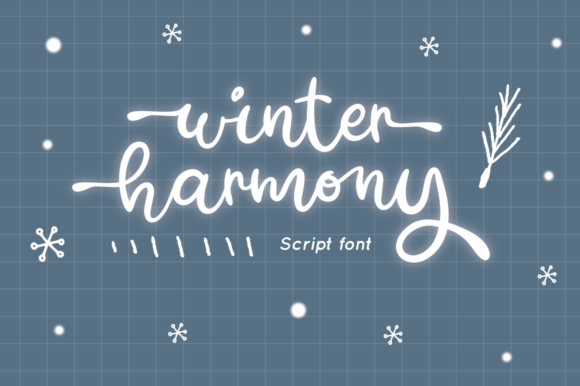
Prepare to be enchanted by Winter Harmony, a font that will ignite the magic of your special day. This exquisite script, crafted with the utmost care by our master calligrapher, oozes elegance and romance, making it the perfect choice for any wedding invitation.
Winter Harmony's meticulously designed characters dance across the page like snowflakes, creating a breathtaking harmony that will captivate your guests. Its delicate curves and graceful flourishes evoke a sense of timeless sophistication, ensuring that your invitation becomes a cherished keepsake.
Whether you envision a classic or modern affair, Winter Harmony effortlessly adapts to your vision. Its versatility knows no bounds, effortlessly complementing any theme or color scheme. Let your creativity soar as you witness how Winter Harmony transforms your words into an unforgettable work of art.
Step into the realm of enchantment with Winter Harmony, where your special day will be forever etched in the annals of memory through the timeless beauty of this extraordinary font.